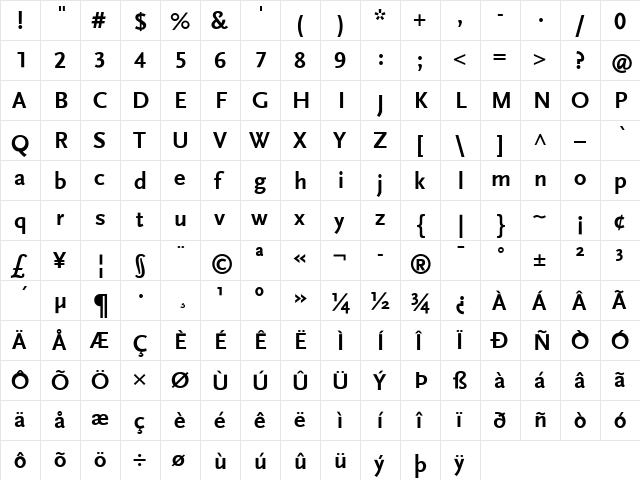
Scala Sans Bold
Design Context for Scala Sans Typeface
Scala Sans is a composed and adaptable typeface that performs quietly and consistently across a wide range of design contexts. Its bold stroke weight gives it real presence on the page.
Pro Tip: Pair Scala Sans with a font of contrasting weight or personality to build a more expressive typographic hierarchy.